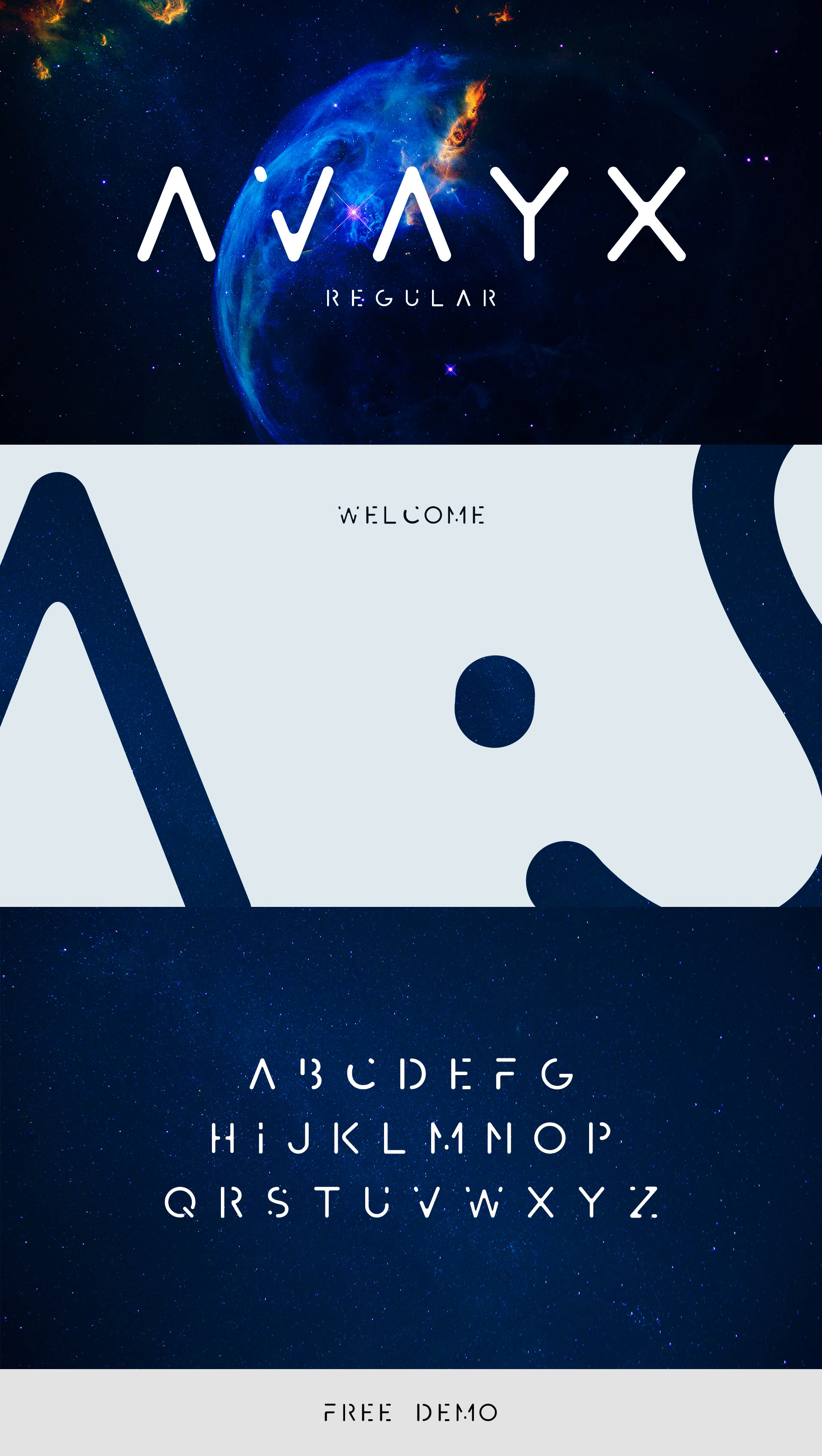
AVAYX Typeface is a modern, minimal and clean font family with uppercase multilingual letters, numbers, punctuation and alternate letters. AVAYX font is not as futuristic as other sci-fi fonts but it’s much more versatile and can be used for non sci-fi purposes as well.